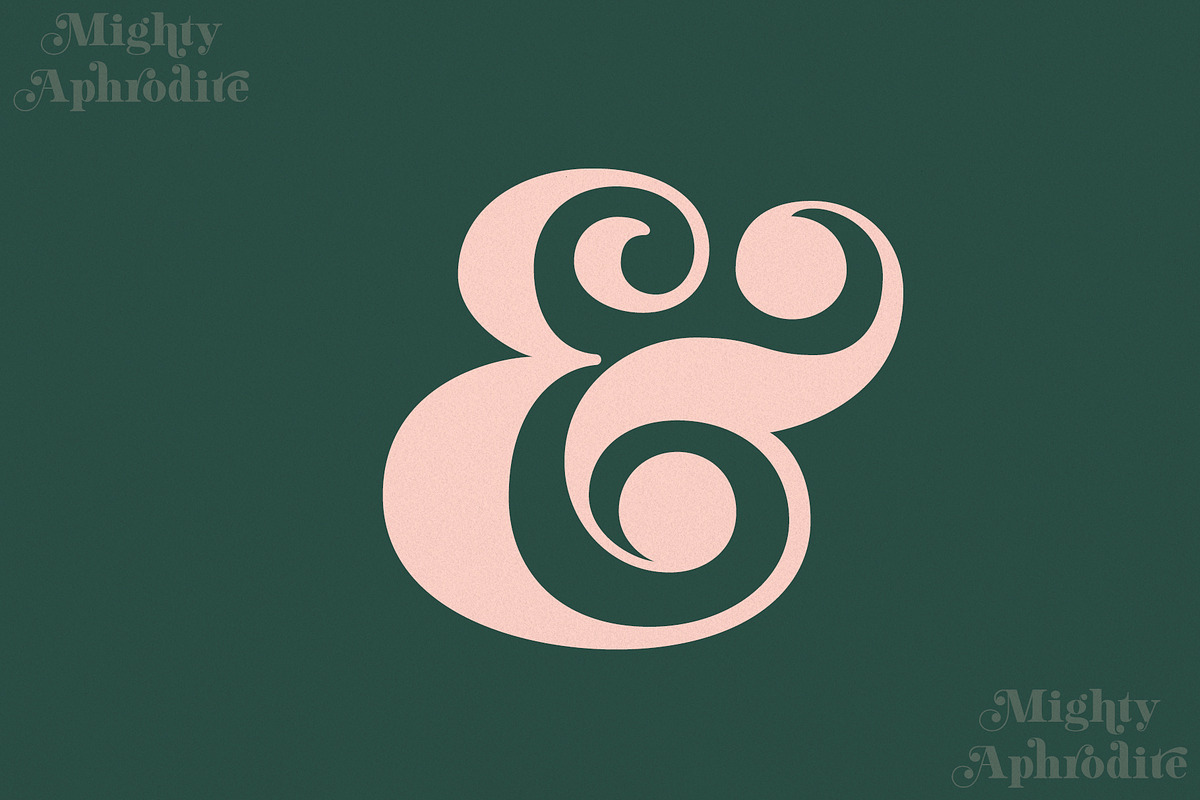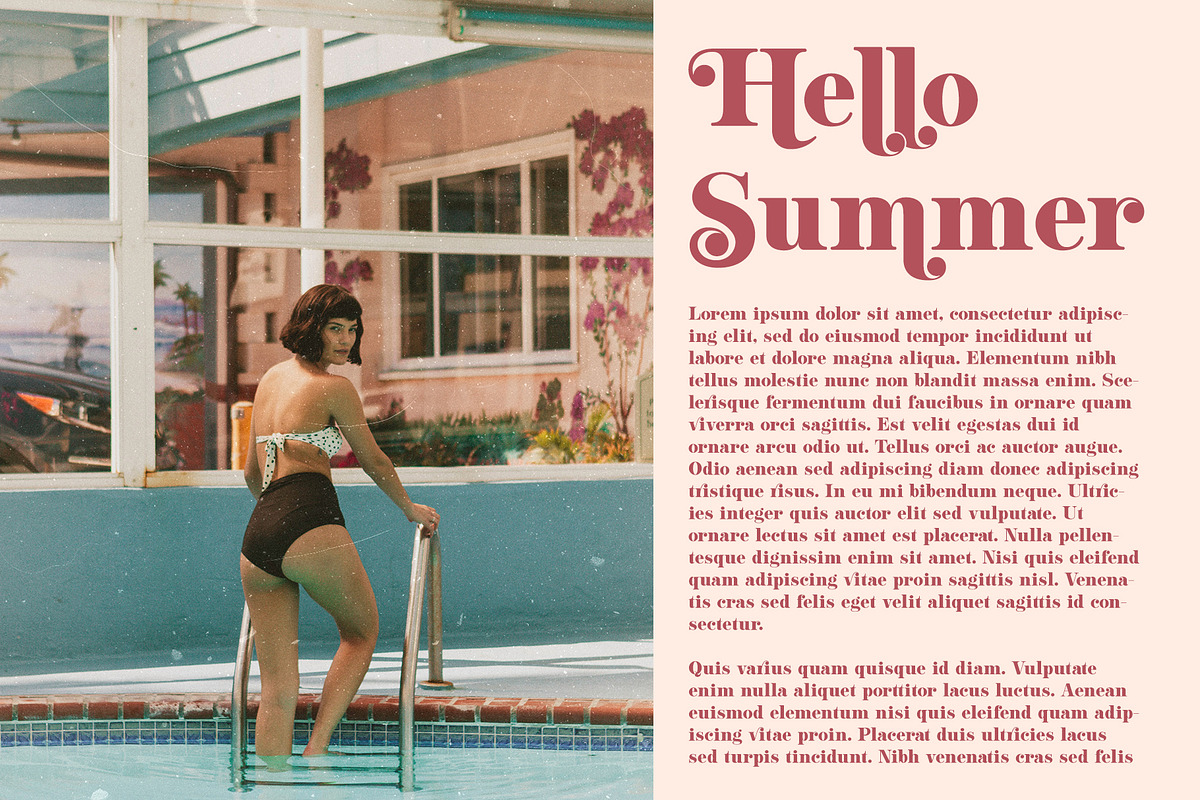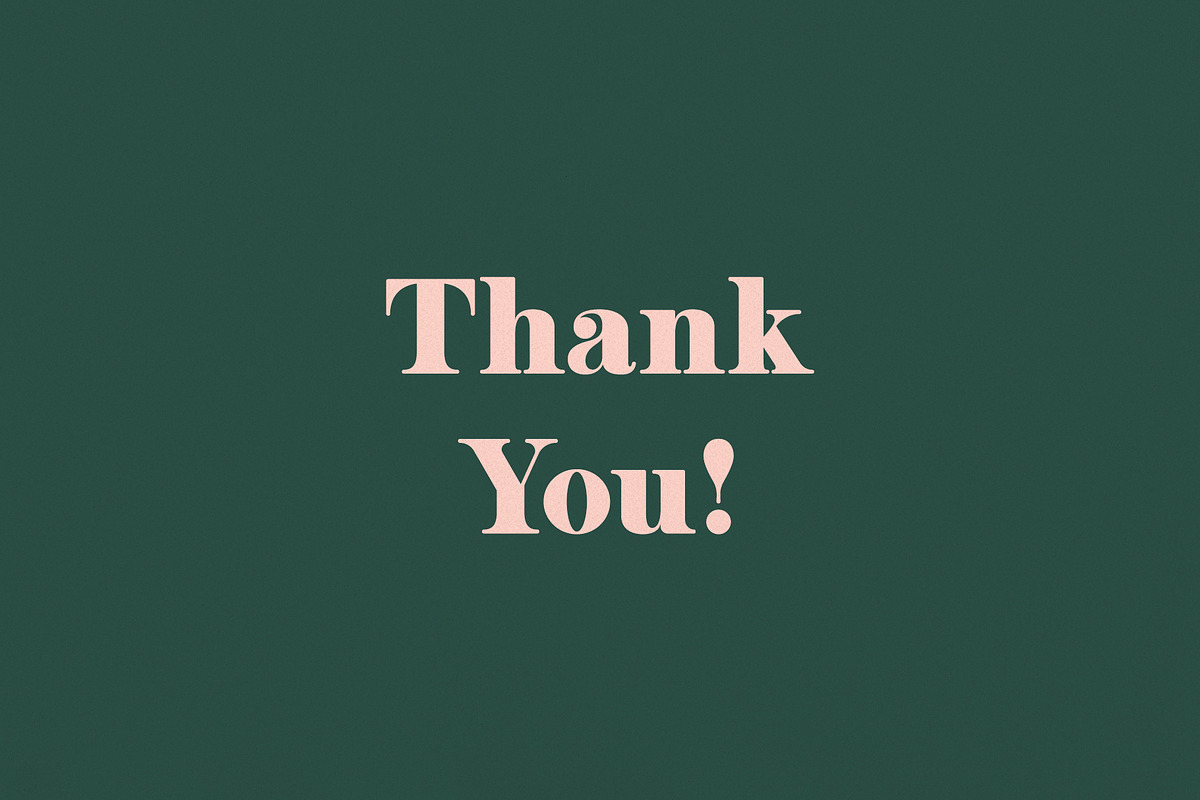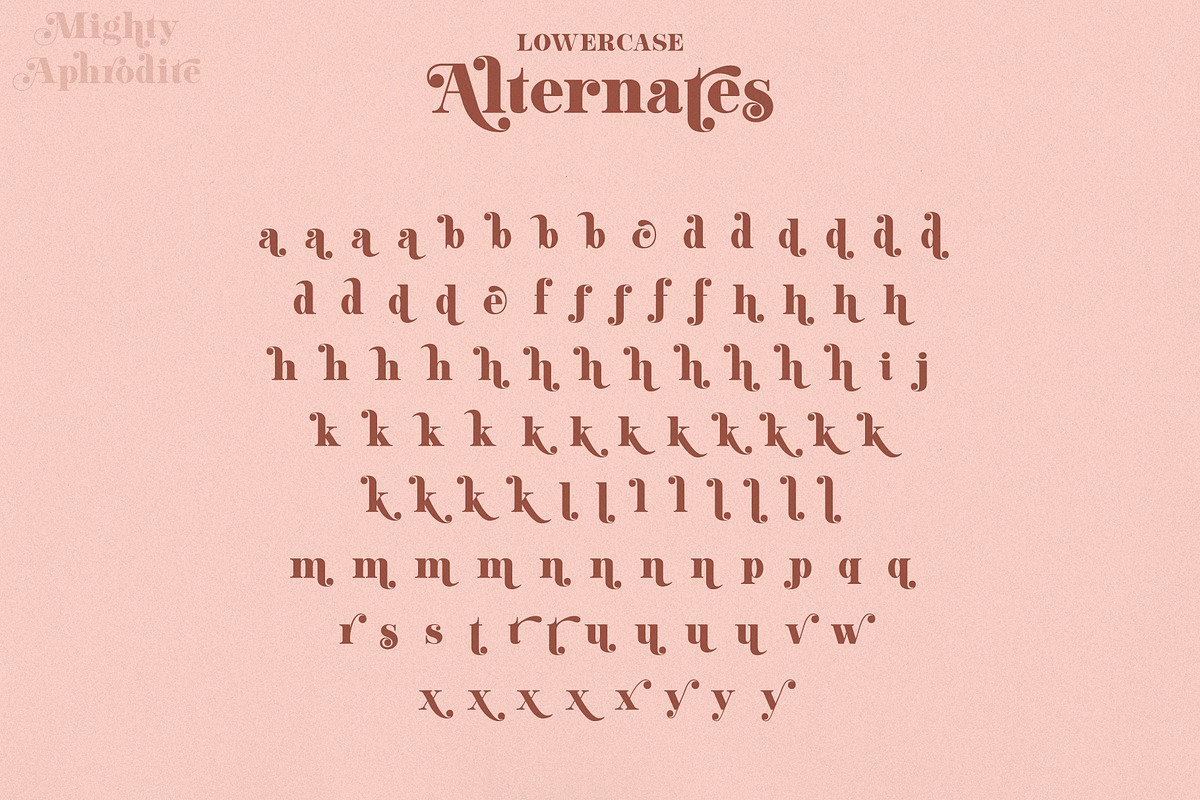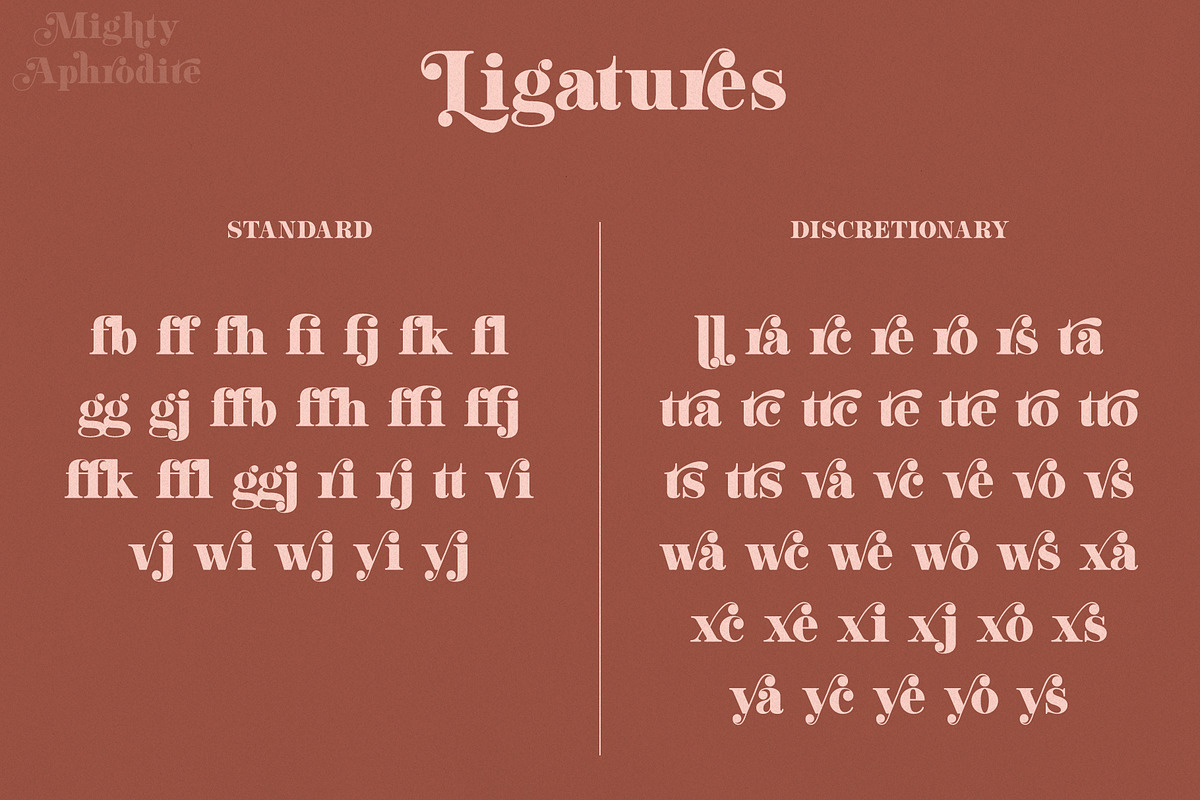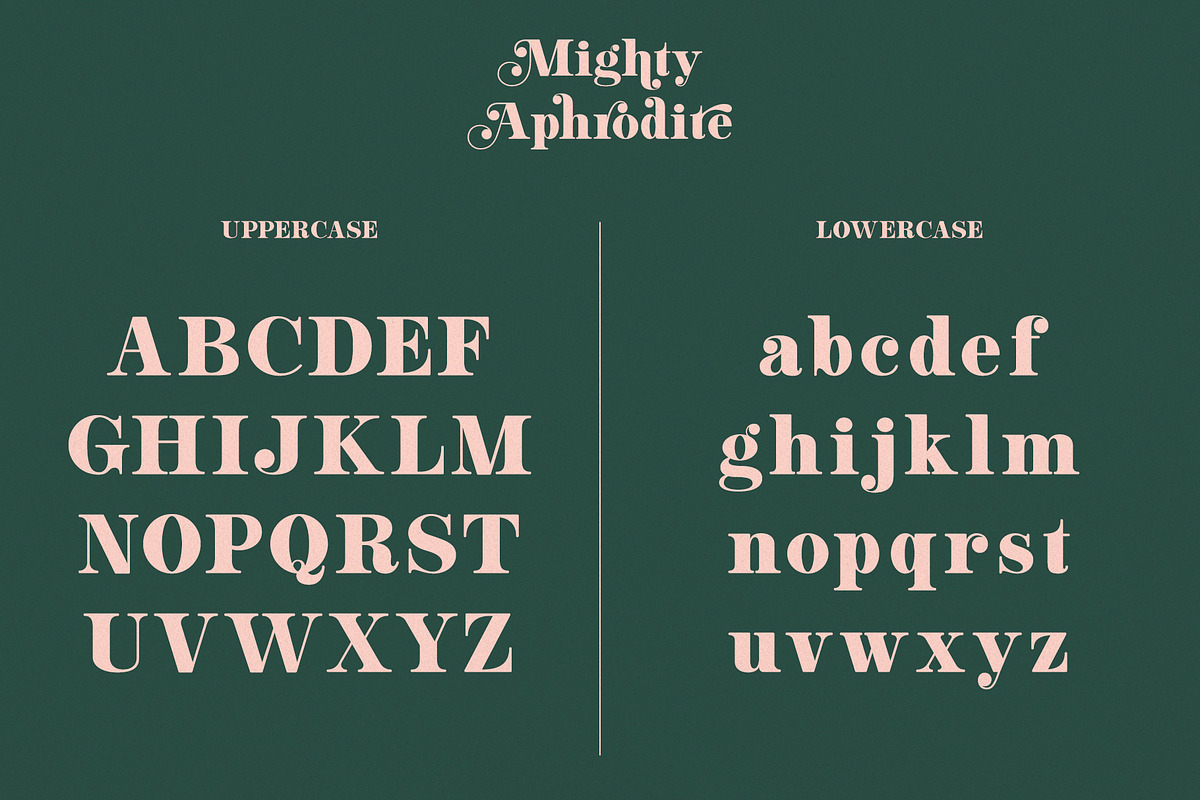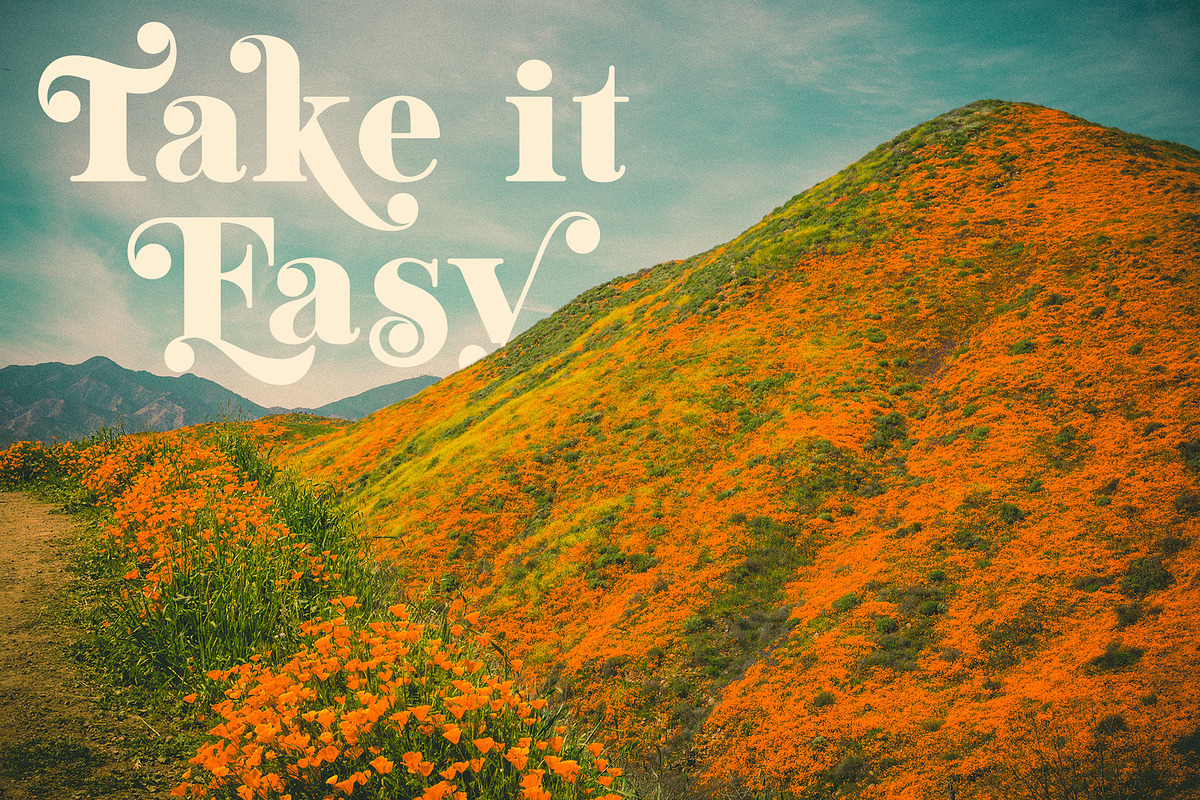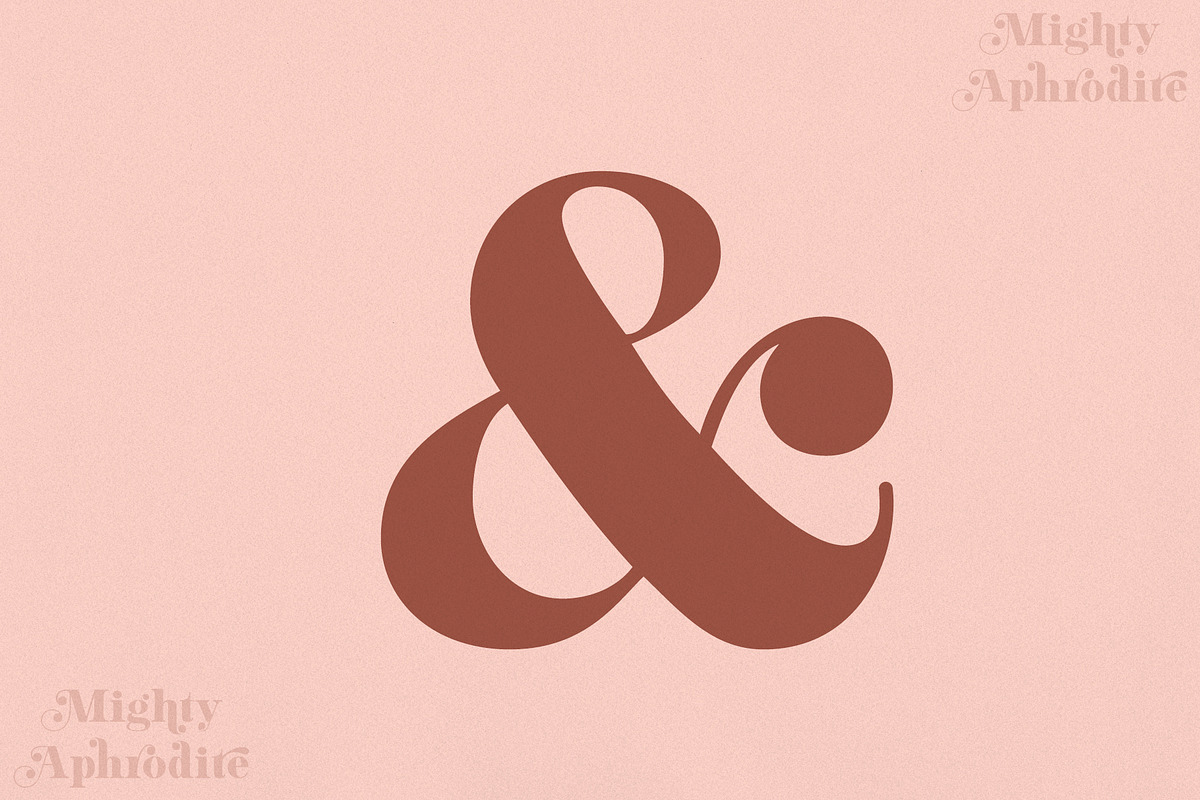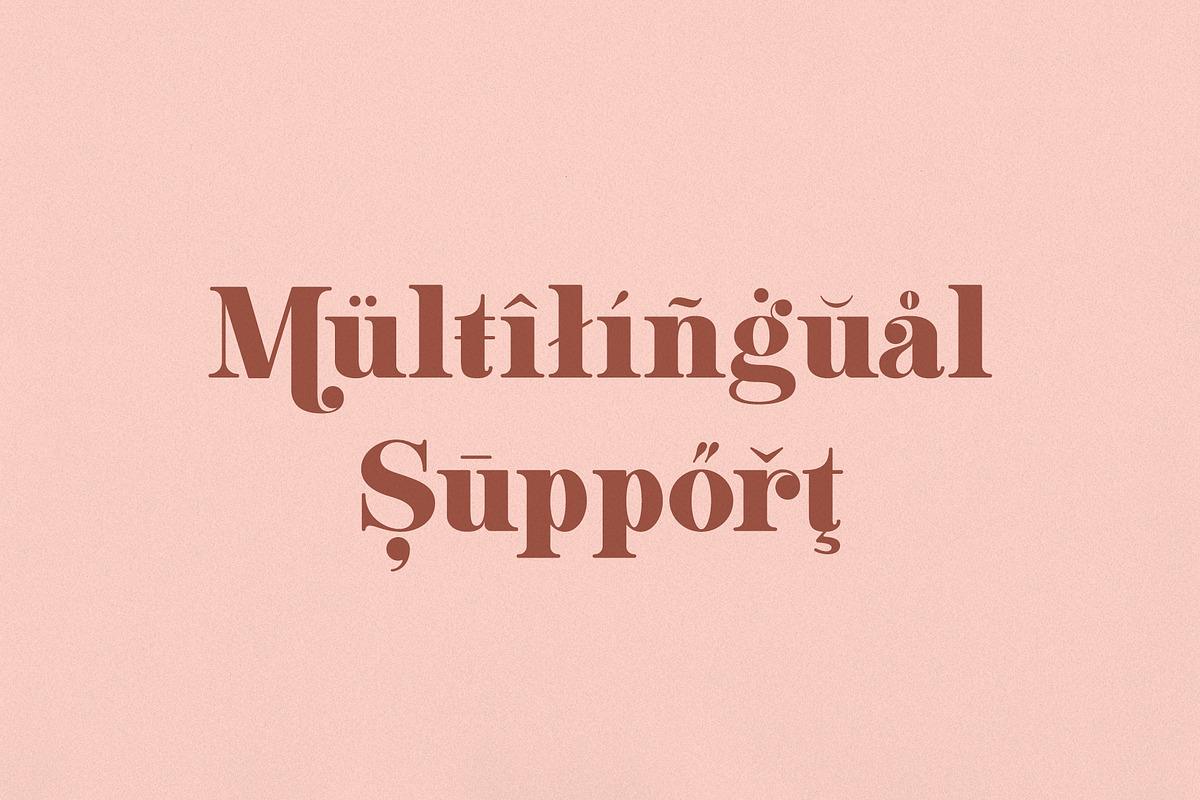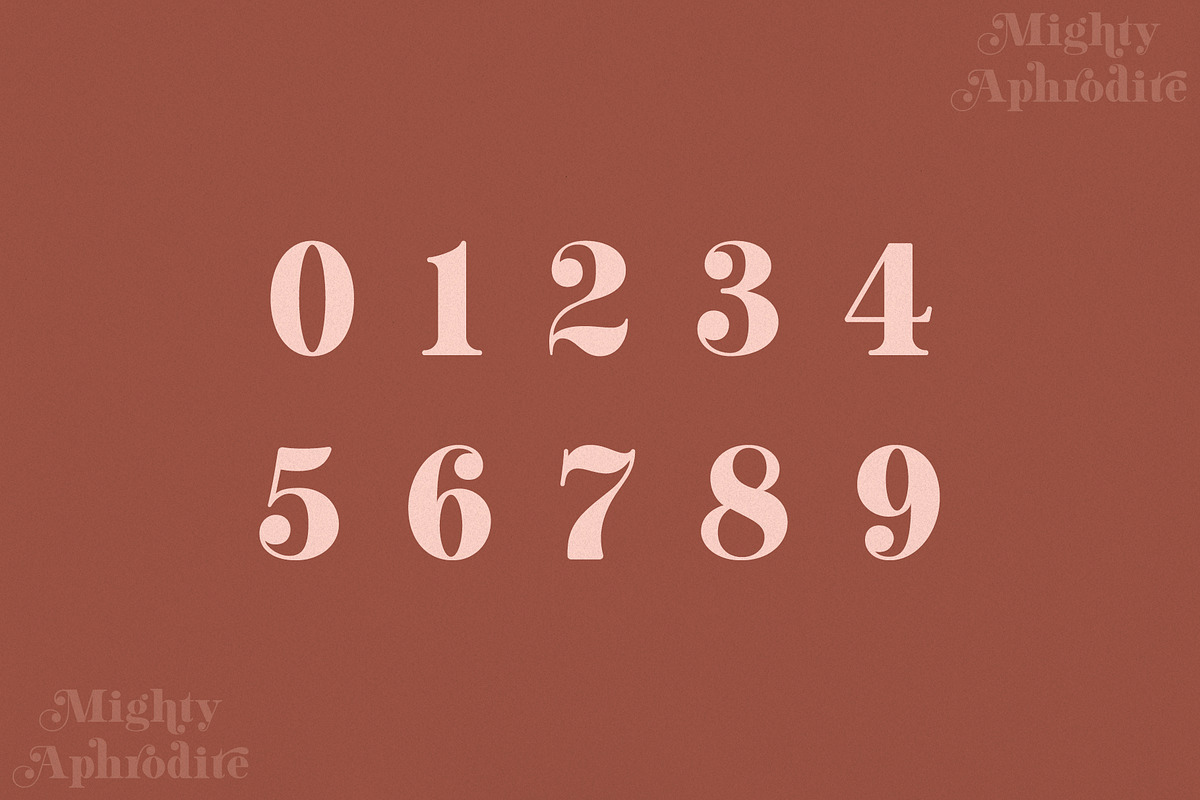
2021 Update!
Mighty Aphrodite just got a huge update!
All glyphs have been recreated from scratch to ensure clean, smooth lines. I have increased the multilingual support so that this font now supports over 50 languages (take a look below to see the full list of languages supported). And there are now over 60 ligatures and over 200 alternate letters!
Introducing my very first font "Mighty Aphrodite"!
This classy, yet modern, font was inspired by a basic serif typeface found in a vintage lettering book from the 1970s. To give it extra allure, I created several alternative letters with beautifully balanced curves and swashes. This is a very versatile font that can be used for a wide range of projects such as branding, magazines, editorials, wedding invites, logo designs, posters, social media, and so much more!
Use the basic serif version for a bold look or add in some of the alternate letters to give your design an extra oomph! To access the alternate letters (and ligatures!), use OpenType features to select the characters you're looking for.
- Upper and lowercase letters
- Accented characters for the international designer
- 60+ standard and discretionary ligatures
- Over 200 alternate letters
For those who may be wondering, this font was previously named "Aphrodite", but due to a naming dispute has since been changed to "Mighty Aphrodite".